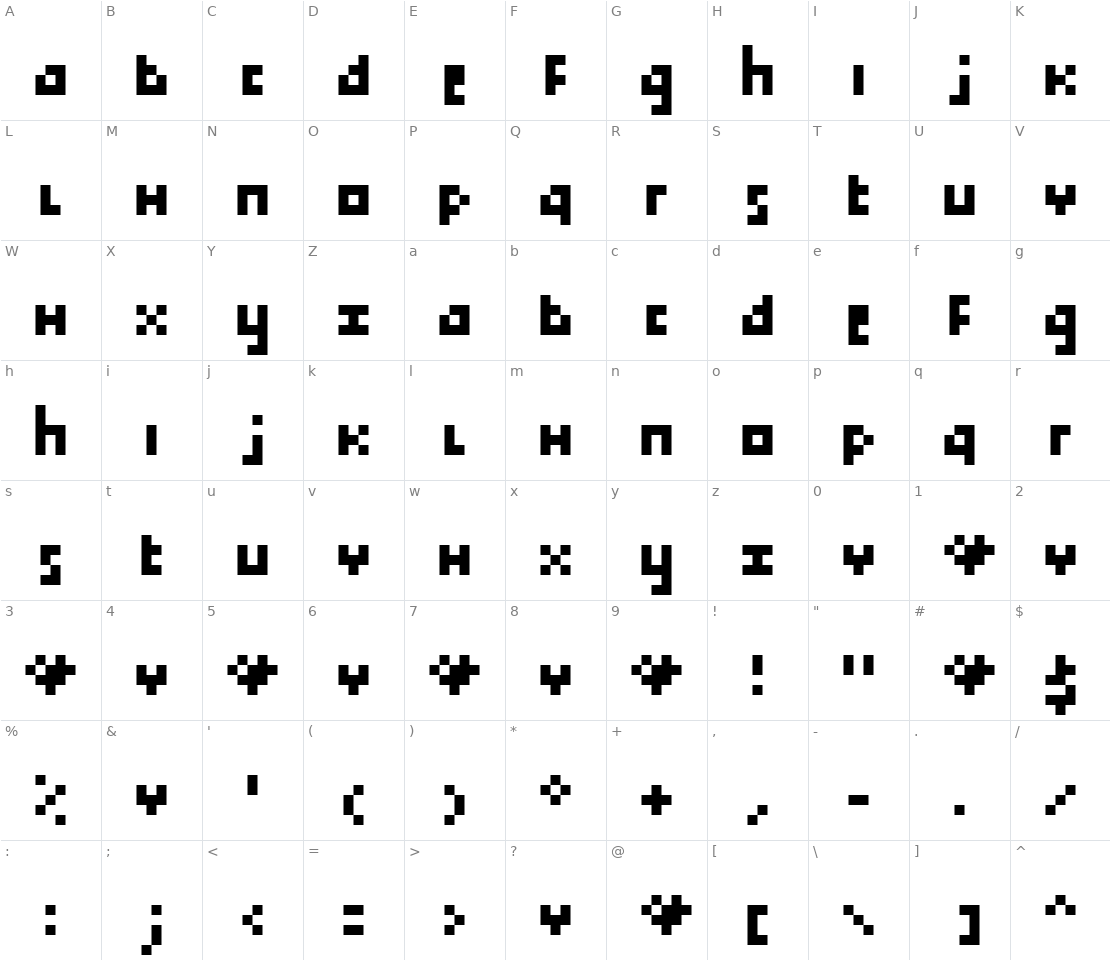
Tokayz
by Alexandra
Tokayz is a heavy, blocky pixel font by Alexandra with bold geometric letterforms that carry a lot of visual mass for their low resolution. The lowercase character set gives it a slightly more casual feel than most pixel faces, while the thick construction keeps things punchy and readable at display sizes. Works naturally for retro gaming projects, digital art, and headlines where you want that unmistakable chunky 8-bit presence.